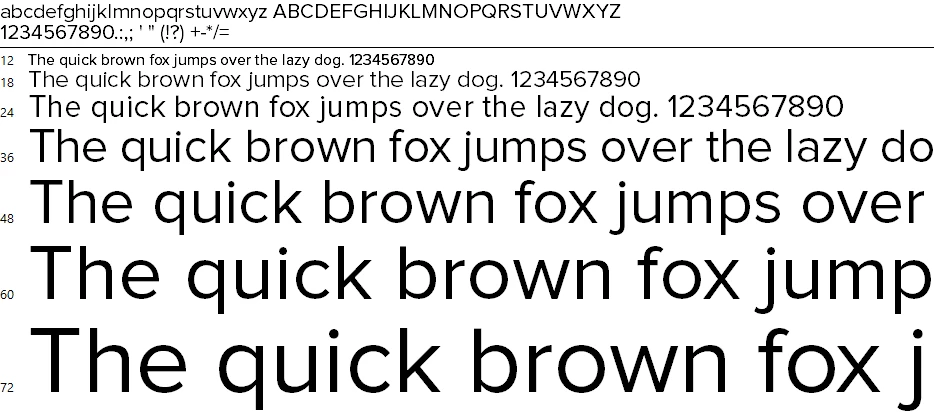
Mark Simonson created Proxima Nova Font. He was a graphic designer in his early career. He wanted to create letters and draw letters with his creativity and design. Proxima Nova is one of his greatest creations from over 100 font collections. The complete font family contains 48 full-featured Open Type Fonts. They are the rework of Proxima Sans created in 1994. The font is of three original widths. They are Proxima Nova, Proxima Nova Condensed, and Proxima Nova Extra Condensed. Seven wights are with matching italics along with nine widths. In total sixteen fonts are in each width. Also, the fonts are in italics in three weights. You can download Proxima Nova for free for personal use.
Proxima Nova Font is basically a text font to use it in the body of an article. However, there are various options in 48 styles of the whole font family. Good for the cover page text as well as banner.
As the font is a hybrid of two fonts, the utilization is multiple for almost every section. Designers may find this font potential for their amazing designing.
Ans: Proxima Nova font is a Sans Serif font with geometric and humanistic proportions. It is good to use almost every aspect.